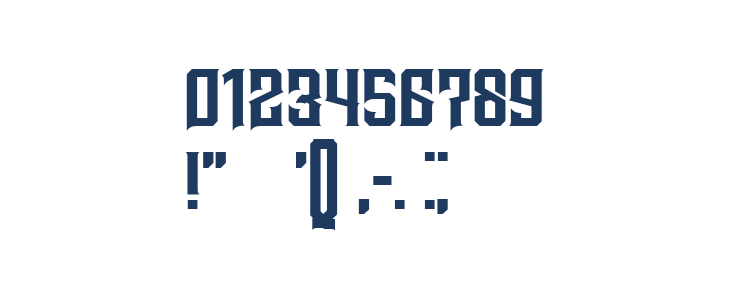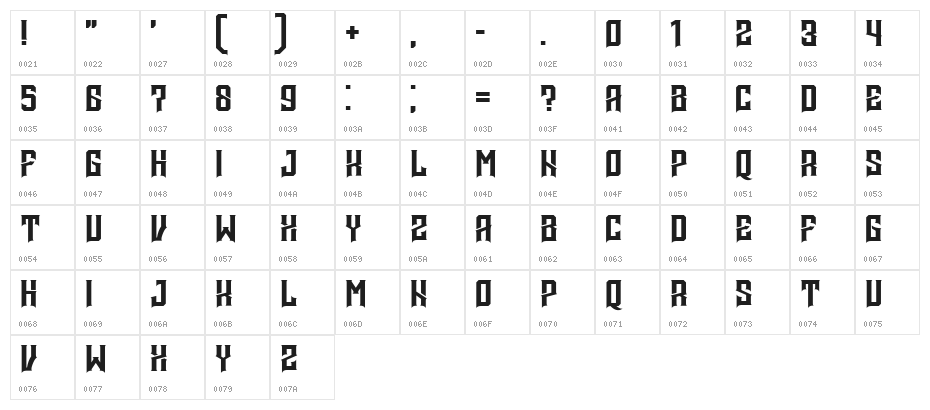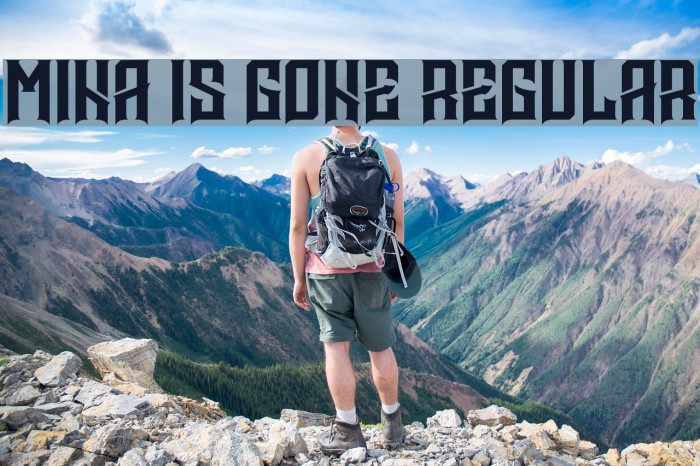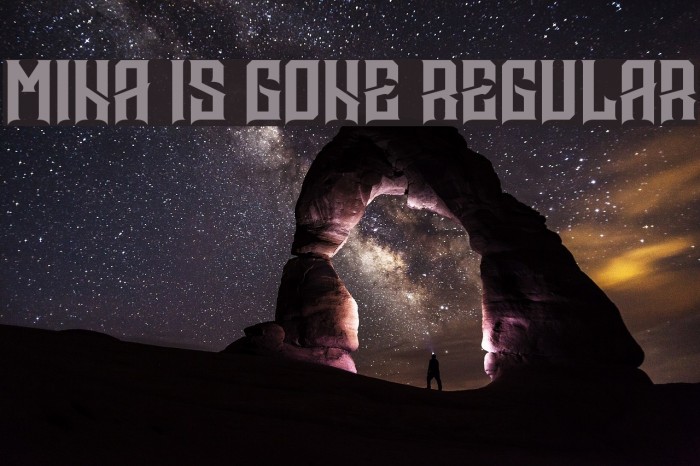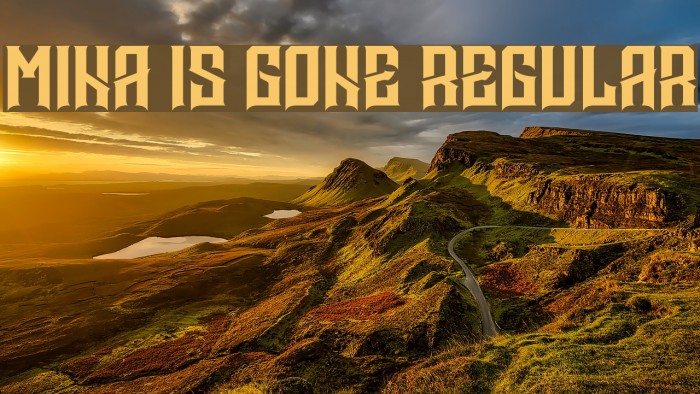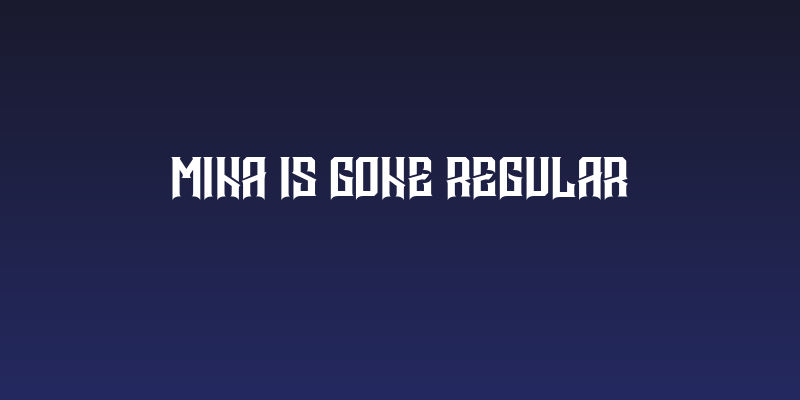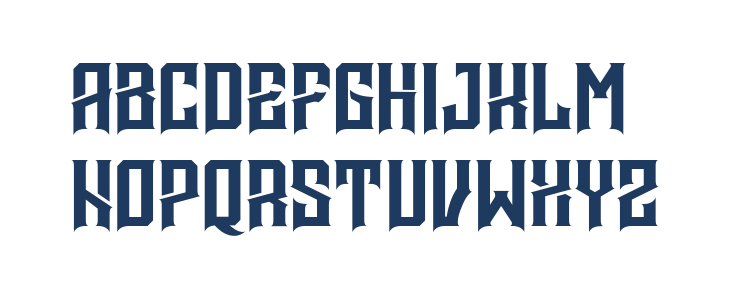
Mina is gone Regular Font
Mina is gone Regular Description
This font features a bold, angular design with sharp edges and a gothic influence. The uppercase letters are striking and commanding, while the lowercase letters maintain the same boldness with slightly more rounded edges. The numbers and special characters follow the same stylistic cues, ensuring a cohesive look across all characters. The font's strong presence makes it suitable for impactful designs, drawing attention with its unique style. Its high contrast and decorative elements lend it a dramatic flair, making it ideal for projects that require a bold statement.
| Overall Style | Gothic, Decorative |
| Proposed Projects | Ideal for posters, album covers, branding, and any project requiring a strong, dramatic typeface. |